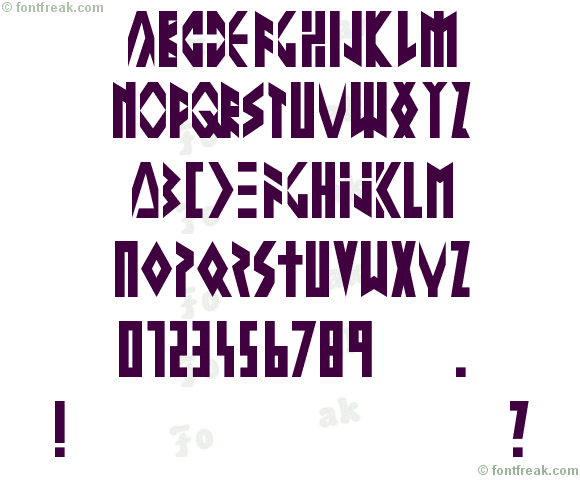
Altering The Future
About Altering The Future
Altering The Future by Roland Huse is a striking display font that falls into the decorative category. This typeface features bold, geometric shapes that create a futuristic aesthetic, making it an ideal choice for projects that aim to convey innovation and modernity. The font showcases a consistent stroke weight, with sharp edges and angular forms that impart a sense of dynamism. The spacing between letters is well-balanced, ensuring readability while still maintaining a distinctive character.
This font is particularly versatile and can be effectively used in various design contexts. It works wonderfully for movie posters, where its eye-catching style can draw attention and intrigue. Additionally, the Altering The Future font is a great choice for branding projects, especially for tech startups looking to establish a contemporary image. It can also enhance the visual appeal of promotional materials, such as flyers and social media graphics. For those in need of an attention-grabbing title for a futuristic-themed event or exhibition, this font can serve as a perfect fit.
What sets the Altering The Future font apart is its unique ability to blend artistic flair with functionality. Its forward-thinking design not only captivates audiences but also elevates the overall aesthetic of any project. For those interested in exploring this innovative typeface, the Altering The Future font free download is readily available, allowing you to infuse your designs with a touch of the avant-garde.